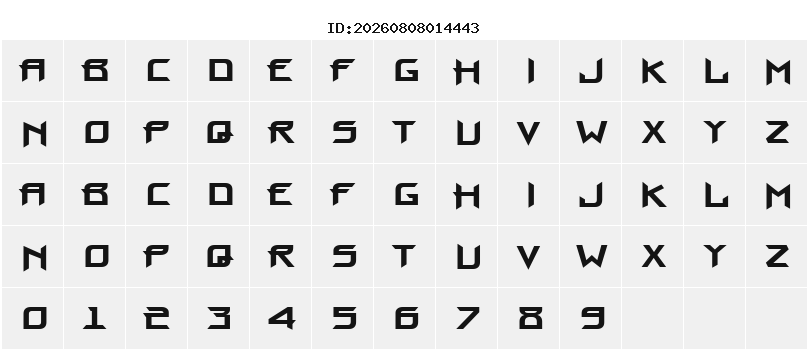
Proun Preview
About Proun.ttf
Proun.ttf is a modern, elegant sans-serif font designed for ultimate readability and visual harmony. Perfect for branding, headlines, web design, and print materials.